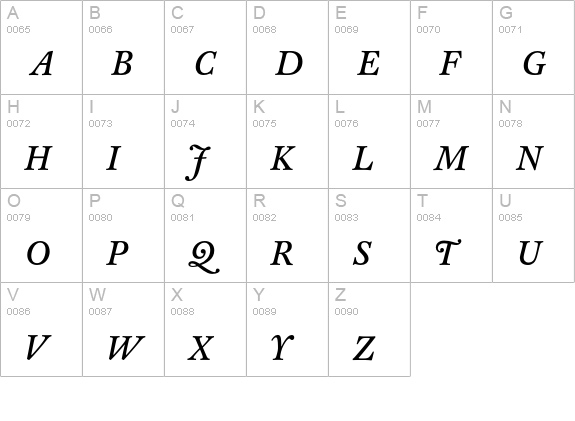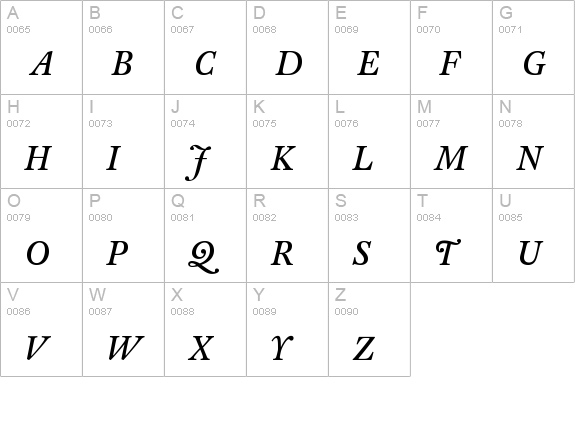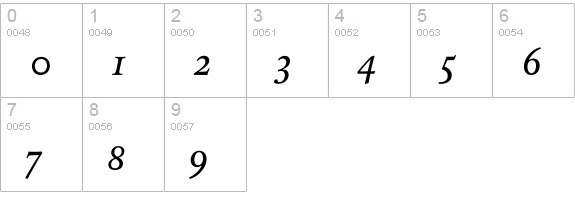
CliffordNine-Italic Font Details
CliffordNine-Italic is a distinctive, italic variant in the CliffordNine typeface family \xE2\x80\x94 well suited to design and typography projects.
CliffordNine-Italic is a sleek and modern typeface that exudes elegance and sophistication. Its italicized design adds a touch of flair and motion to any text it graces. The sharp angles and clean lines of this font make it perfect for adding a contemporary edge to your designs. What sets CliffordNine-Italic apart is that it is available for free download at FontsMarket.com. This means that you can easily access and use this stylish font in your projects without any cost. Whether you're working on branding, advertising, or any other creative endeavor, CliffordNine-Italic is a versatile choice that will elevate your work to the next level.